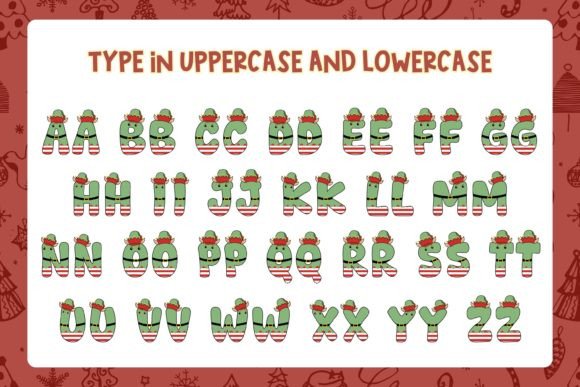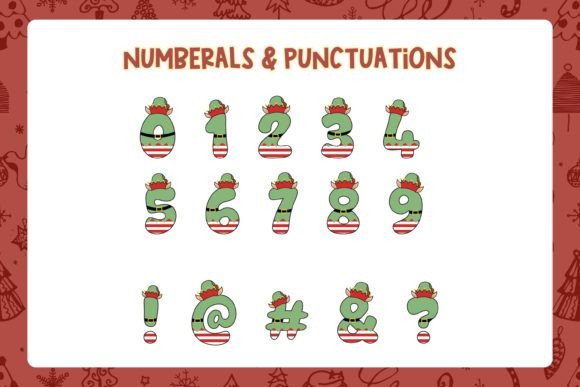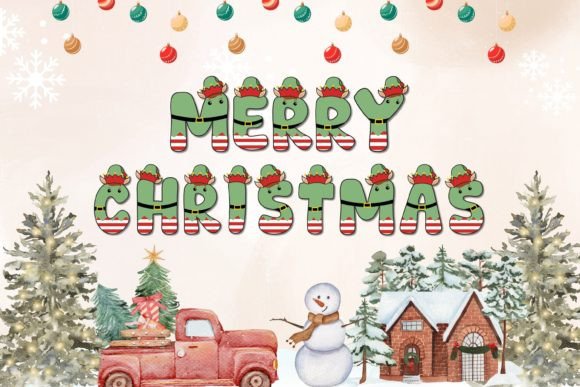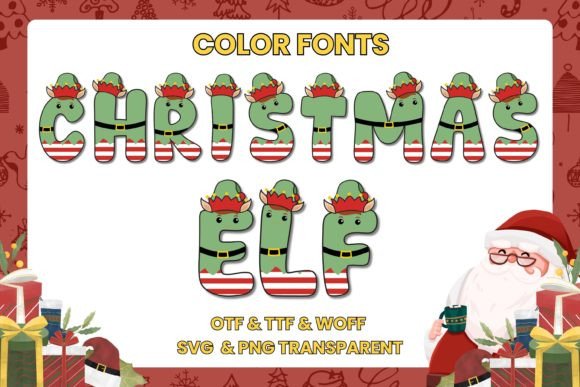
Introducing Christmas Elf Font: Add a Touch of Enchantment to Your Holiday Designs
Are you looking for a font that will bring a dash of magic to your Christmas-themed designs? Look no further than Christmas Elf Font! This vibrant and playful color font is perfect for designers and crafters who want to add a touch of whimsy to their holiday projects. In this article, we’ll take a closer look at Christmas Elf Font, its features, and how you can use it to create mesmerizing masterpieces.
What is Christmas Elf Font?
Christmas Elf Font is a unique and captivating color font that is designed to bring the spirit of Christmas to life. Its playful and vivid characters are perfect for creating eye-catching designs that will stand out from the crowd. Whether you’re working on t-shirt designs, digital imprints, craft creations, decorative cards, or extensive projects, Christmas Elf Font is the perfect choice.
Variations of Christmas Elf Font
Christmas Elf Font is perfect for designers and crafters who want to add a touch of magic to their holiday projects. Whether you’re creating custom t-shirts, decorations, or cards, this font is sure to bring a smile to people’s faces. Its playful and whimsical characters are perfect for capturing the spirit of Christmas, and will add a touch of enchantment to any design.
Tips for Using Christmas Elf Font
Here are a few tips for using Christmas Elf Font in your designs:
• Use Christmas Elf Font to create eye-catching headings and titles for your holiday designs.
• Pair Christmas Elf Font with other festive fonts to create a unique and playful look.
• Use the font to create custom illustrations and graphics for your holiday projects.
• Experiment with different colors and textures to add depth and interest to your designs.
Why Choose Christmas Elf Font?
So why choose Christmas Elf Font for your holiday designs? Here are just a few reasons:
• Unique and playful characters that capture the spirit of Christmas.